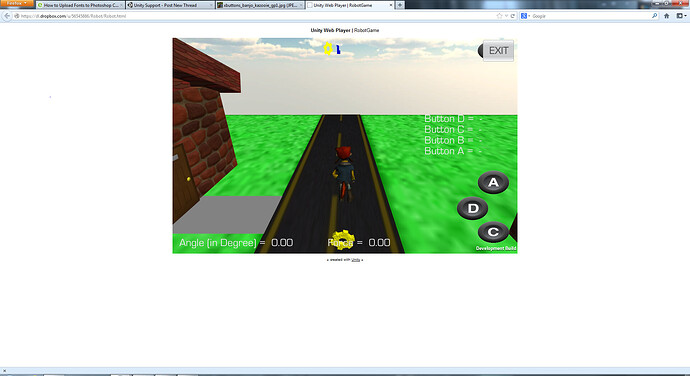
Gradient Color Fonts?
How would one someone make a font just 0-9 that has gradient colors with Unity? Do I need to get some one to make me a font? I just want my point system to look good. First picture is my reference for what I’m looking for and second one is my current one. In the first picture there are two colors on the music note. Thats what I’m looking for…
You could create the numbers in Photoshop or Gimp and it’s easy to add gradient using these programs. Then export the images and use them as textures.
Otherwise you could look at 2D toolkit which has gradient text meshes : http://forum.unity3d.com/threads/93287-2D-Toolkit-2D-in-Unity-made-simple-RELEASED